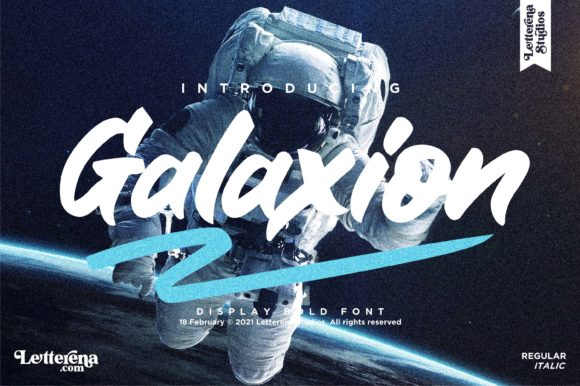
Introducing Galaxion Font, a display font that will ignite your creativity and transform your designs into captivating masterpieces. Whether you're a seasoned designer or just starting, Galaxion is the perfect font to elevate your projects and make a lasting impression.
With its unique and eye-catching style, Galaxion is the ultimate choice for creating stunning logos, eye-catching posters, captivating social media graphics, and any other design project that demands attention. Its versatility extends from digital masterpieces to tangible creations, making it ideal for crafting, presentations, and greeting card making.
Immerse yourself in the world of Galaxion and discover a font that truly captures the essence of creativity and expression. Its meticulously crafted characters dance across the page, evoking a sense of wonder and fascination. Galaxion is not just a font; it's an experience that will leave you spellbound.
But Galaxion is more than just visually stunning; it's also incredibly easy to use. Its seamless integration with various design software ensures a smooth and effortless workflow. Whether you're a seasoned pro or just starting out, Galaxion's user-friendly nature makes it accessible to all.
So, embark on a creative journey with Galaxion Font and unlock a world of endless possibilities. Let your imagination soar as you create designs that resonate with your audience and leave a lasting impression. Experience the Galaxion difference today and elevate your creativity to new heights!